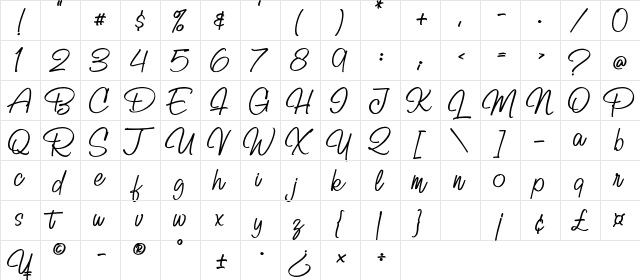
Billy Signature Regular
Design Context for Billy Signature Typeface
Billy Signature is a composed and adaptable typeface that performs quietly and consistently across a wide range of design contexts.